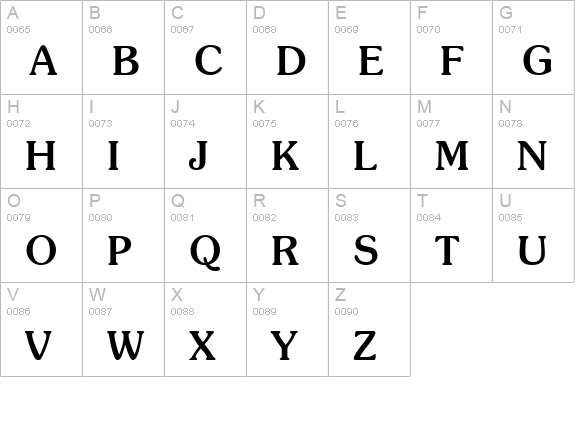
Souvenir Greek Medium BT is a balanced, medium-weight variant in the Souvenir typeface family \xE2\x80\x94 well suited to sub-headlines, navigation, and balanced editorial work.
Introducing Souvenir Greek Medium BT, a captivating font that effortlessly merges contemporary design with timeless Greek letterforms. This exquisite typeface is sure to leave a lasting impression, whether it's used for promotional materials, book covers, or signage. With its balanced proportions and elegant curves, Souvenir Greek Medium BT strikes the perfect balance between modern sophistication and traditional craftsmanship. Each letter is meticulously crafted, showcasing the rich heritage of Greek typography while adding a touch of versatility for a wide range of design applications. This font is not only visually stunning, but it is also incredibly user-friendly. Its medium weight offers optimal legibility, making it ideal for both print and digital projects. The attention to detail in every glyph ensures seamless readability, even at smaller sizes. And the best part? Souvenir Greek Medium BT is freely available to download at FontsMarket.com. This means that you can enhance your designs without any financial burden, allowing you to explore your creative potential without limitations. Whether you're a student, a professional designer, or simply an enthusiast, the accessibility of this font makes it a valuable addition to any typography collection. So go ahead and elevate your designs with the timeless beauty of Souvenir Greek Medium BT. With its harmonious blend of modernity and tradition, this font is guaranteed to make a lasting impression on your audience. Download it for free at FontsMarket.com and unlock a world of endless design possibilities.